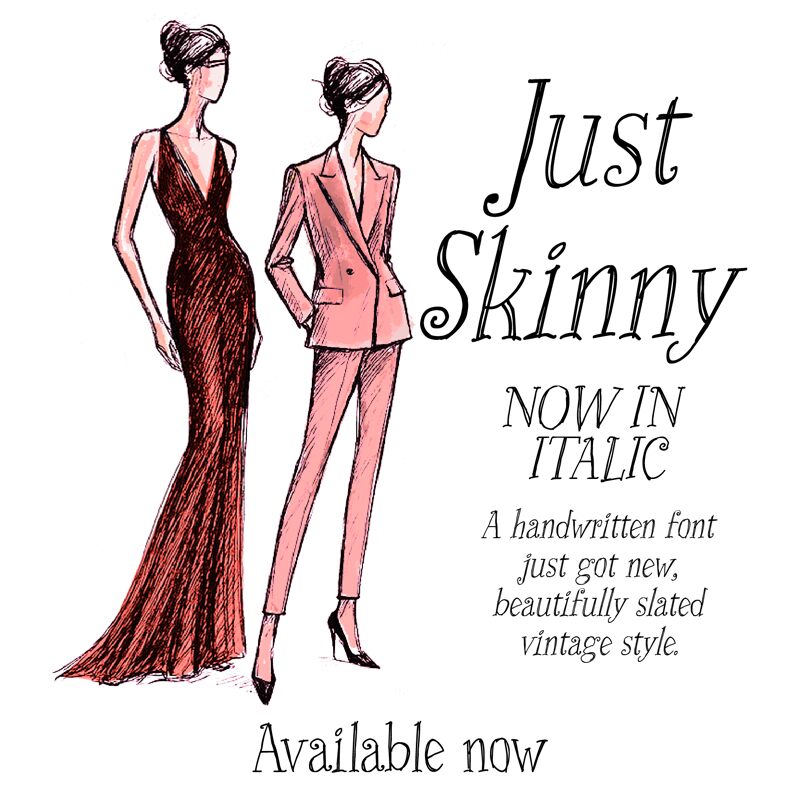
Just Skinny Italic
Just Skinny Italic font by Galdino Otten Fonts is a condensed, handwritten free font with decorative elements. Its whimsical curly accents have an elegant vibe brought out mostly by its italic style. Natural, graceful, and effortlessly chic are characteristics that make it similar to calligraphy writing yet with a more relaxed feel.
Achieve expressive headings or titles in posters and magazines. Find a different approach when applying the font in logo designs, branding projects, website projects, or advertorials. Express yourself visually while still achieving readability since this tricky balance is already handled by the font developers!